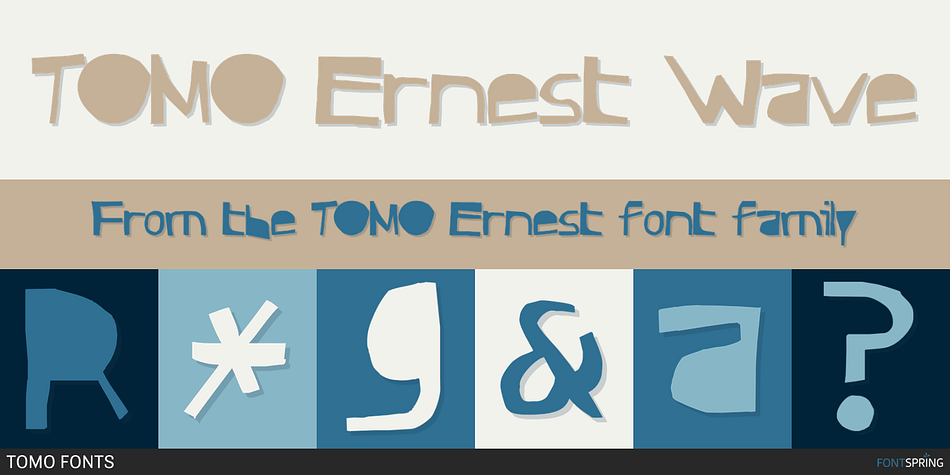
TOMO Ernest Wave
TOMO Ernest is a font family. This typeface has two styles and was published by TOMO FONTS.
Ernest is TOMO’s new font! A handmade typeface with an unique yet strong voice. Say it bold with this font. Punk & Wave styles. Ideal for typography based designs.